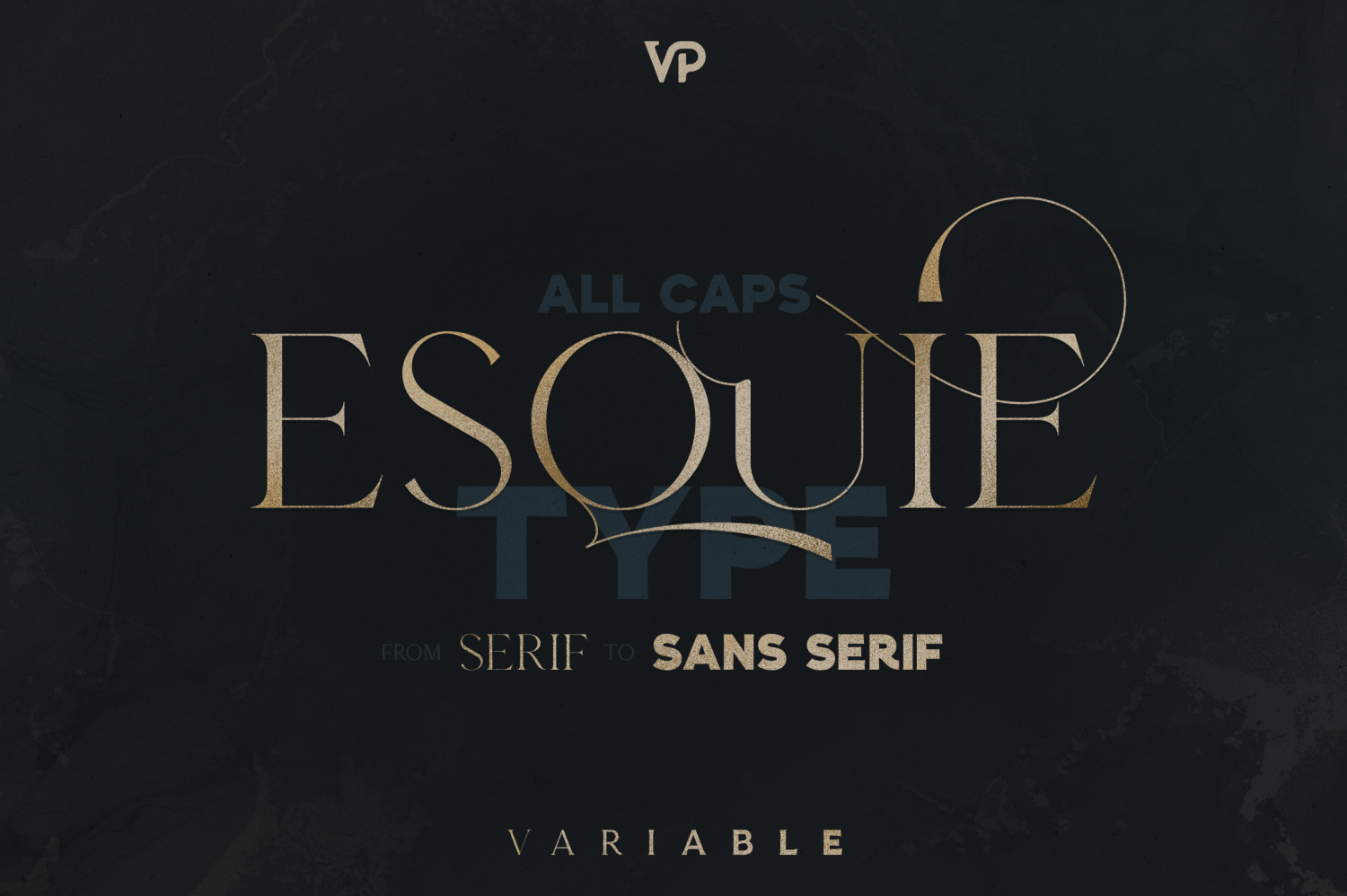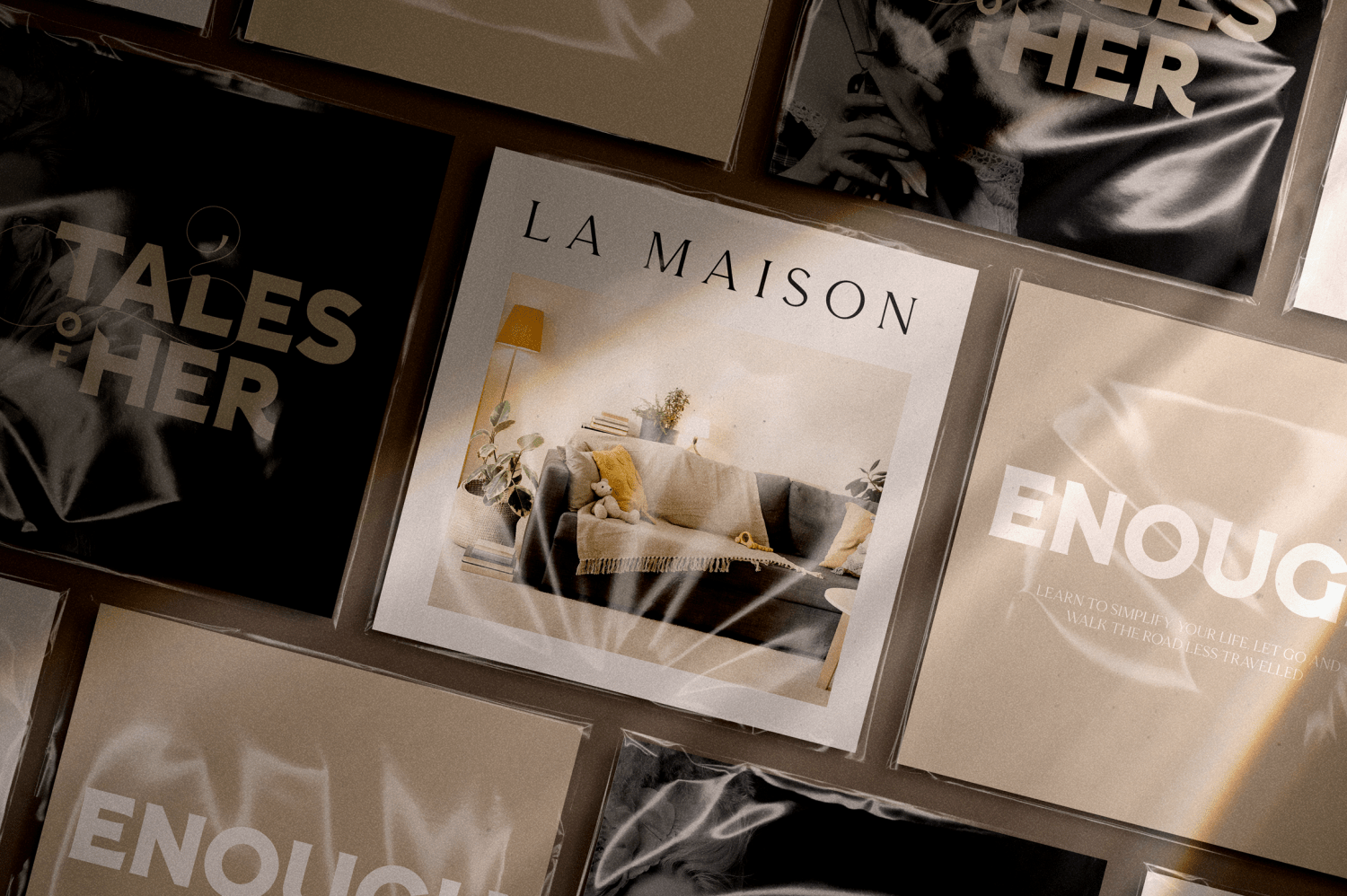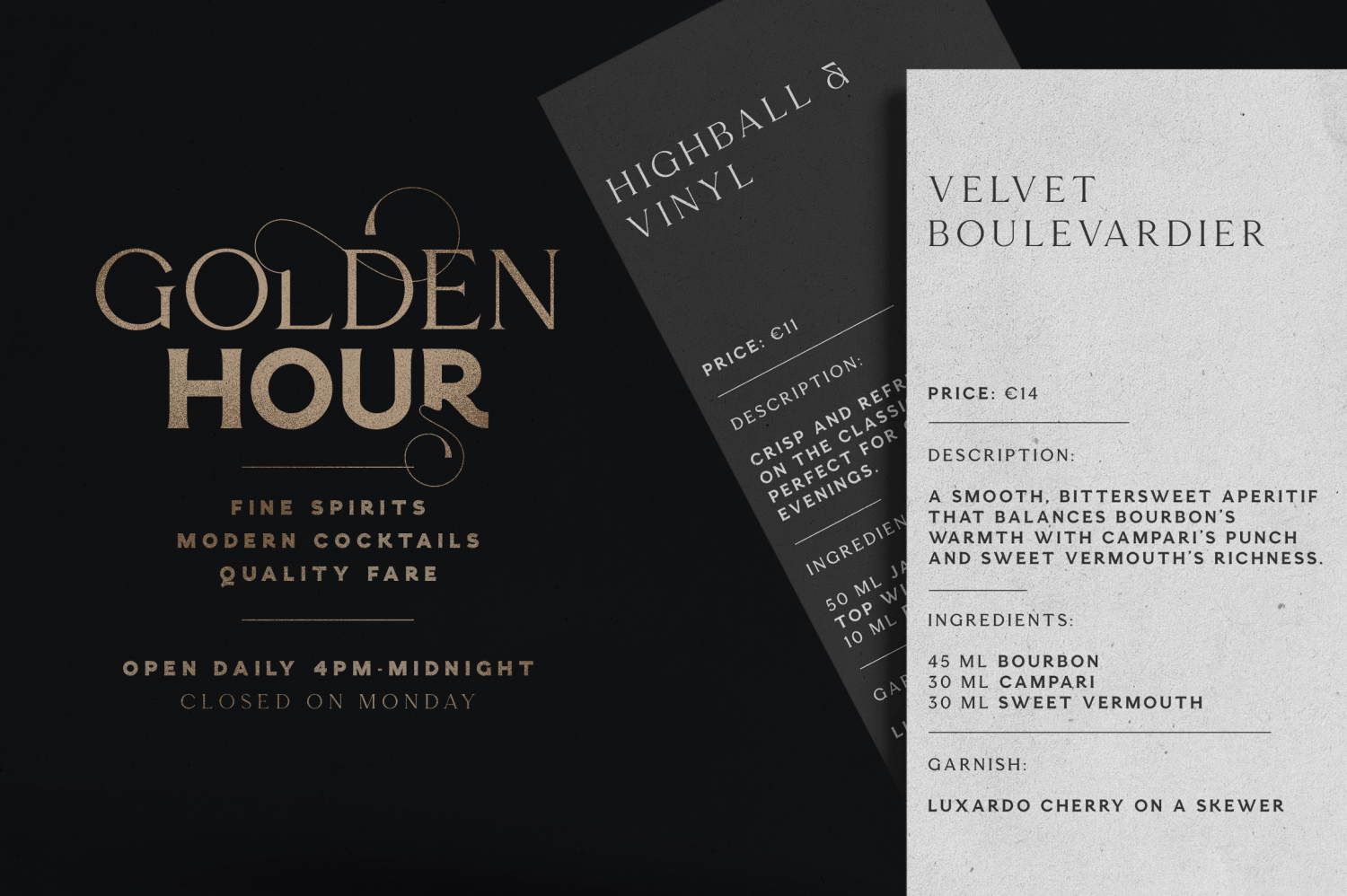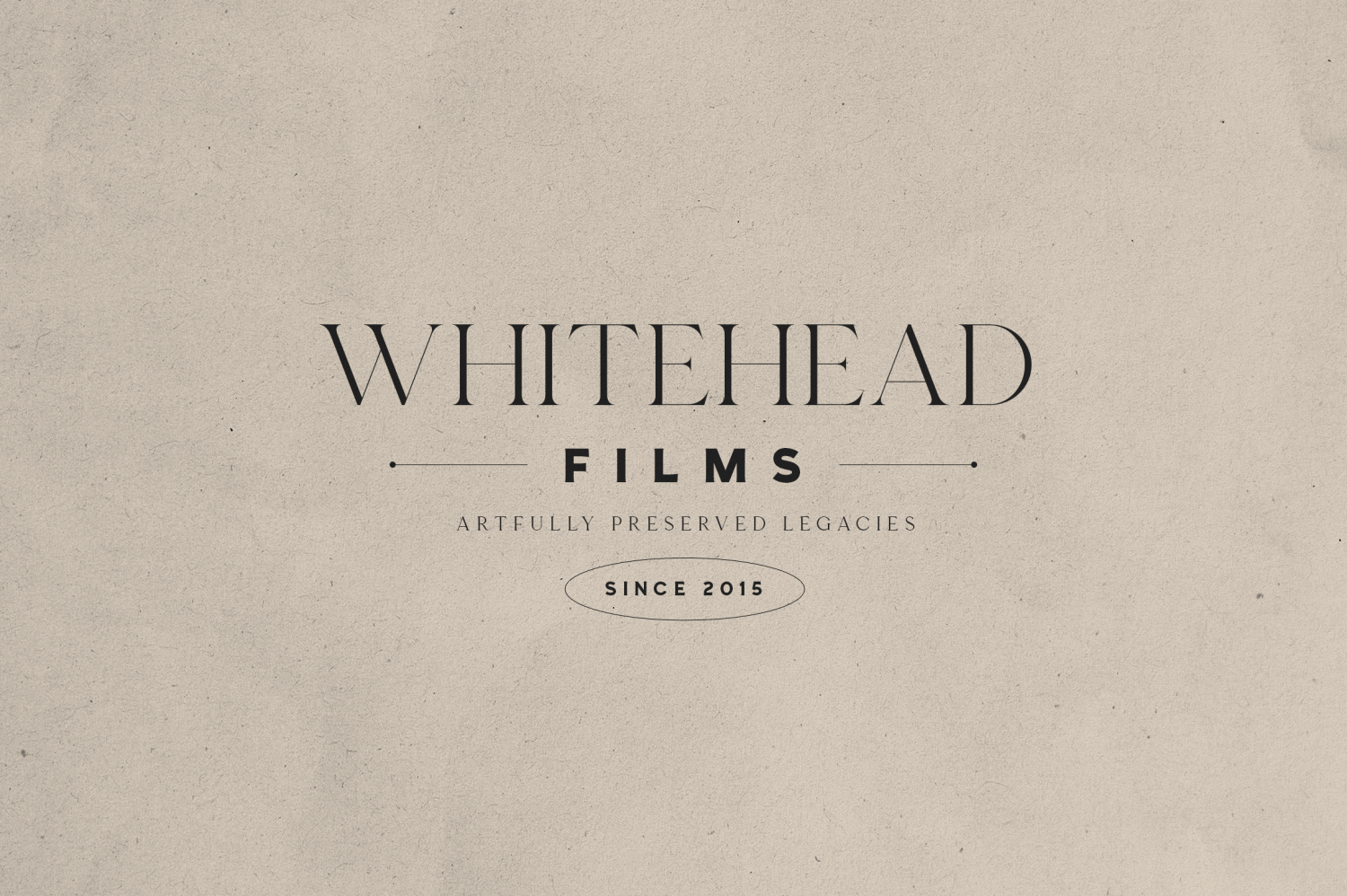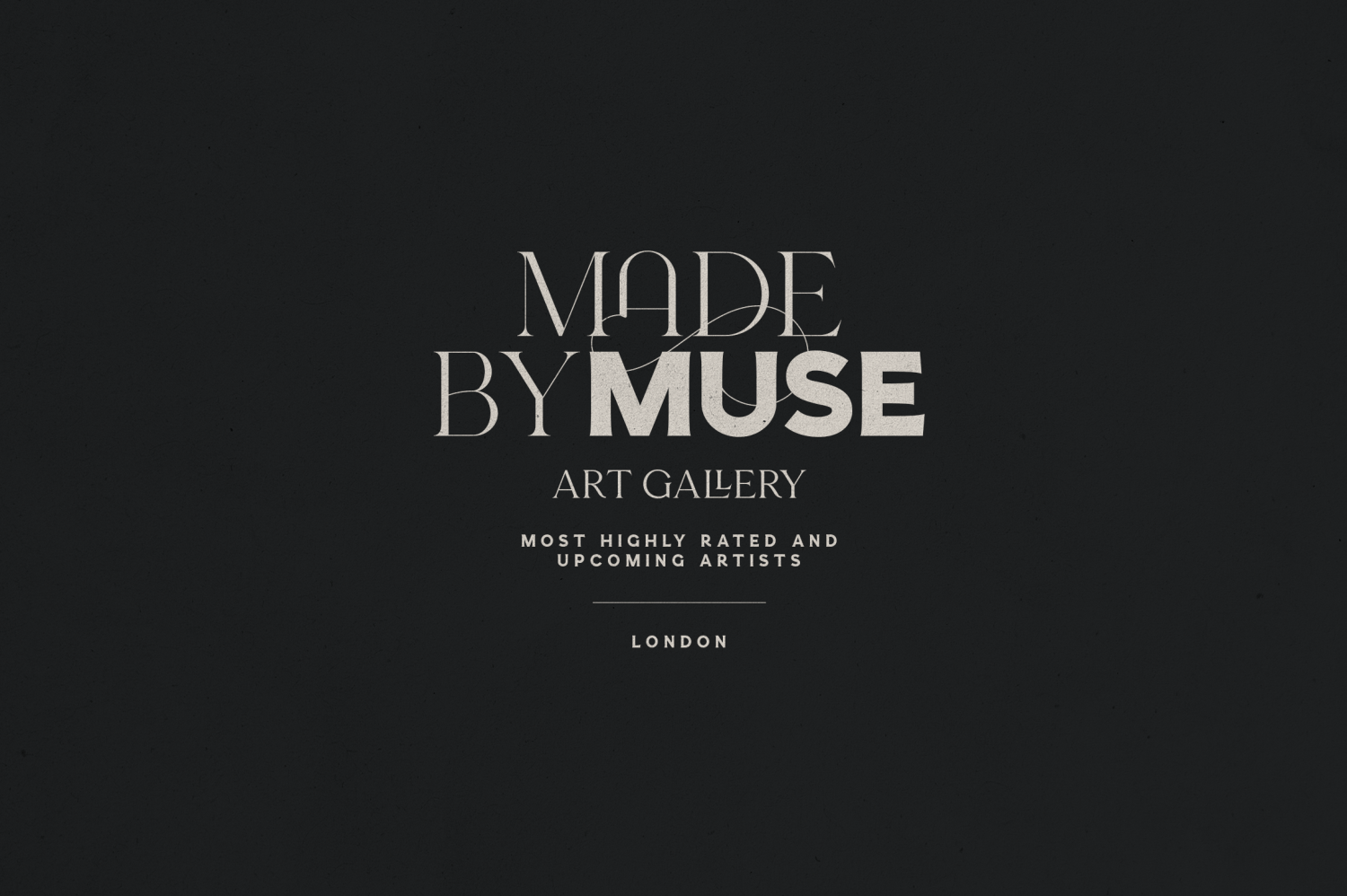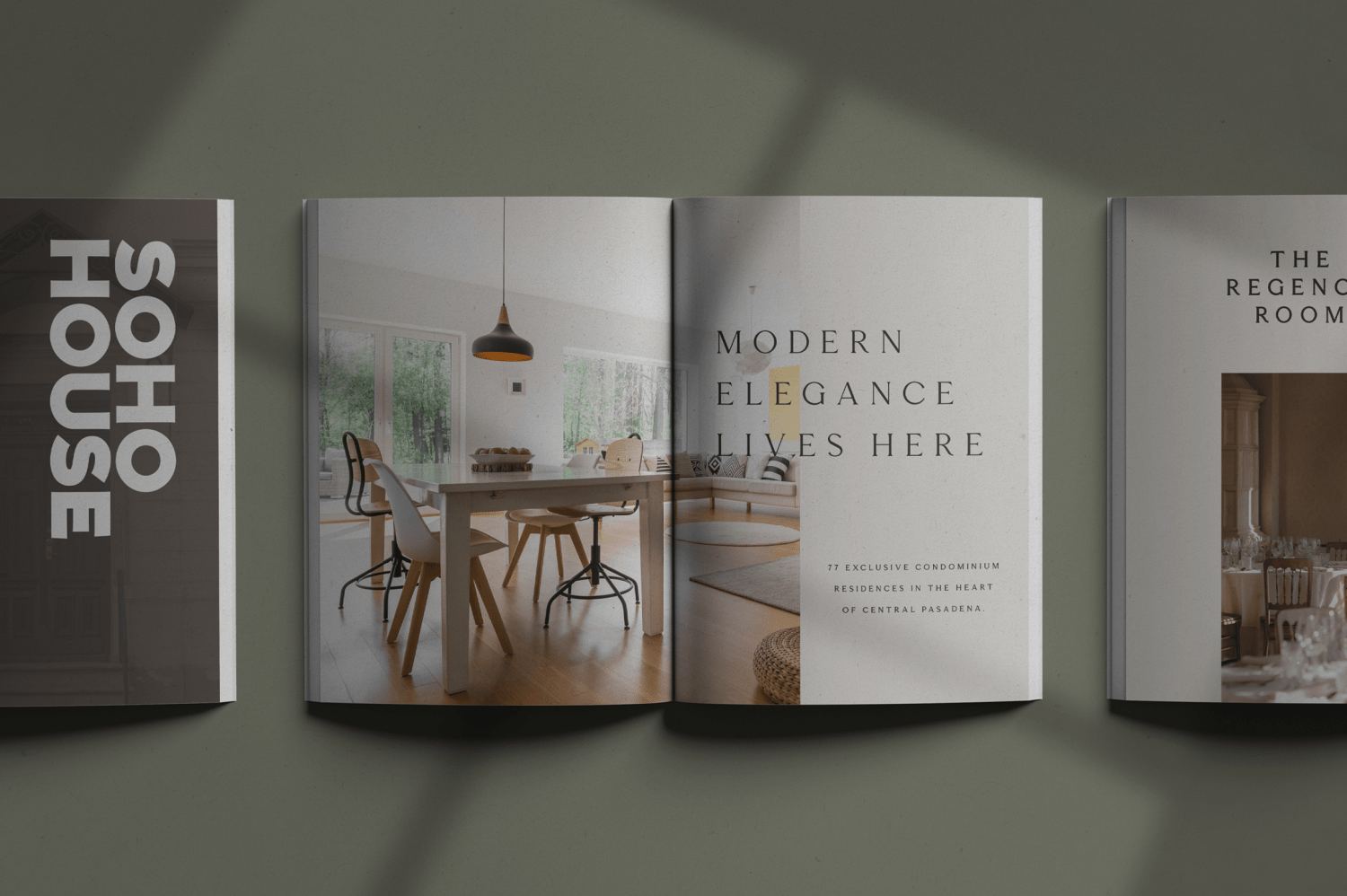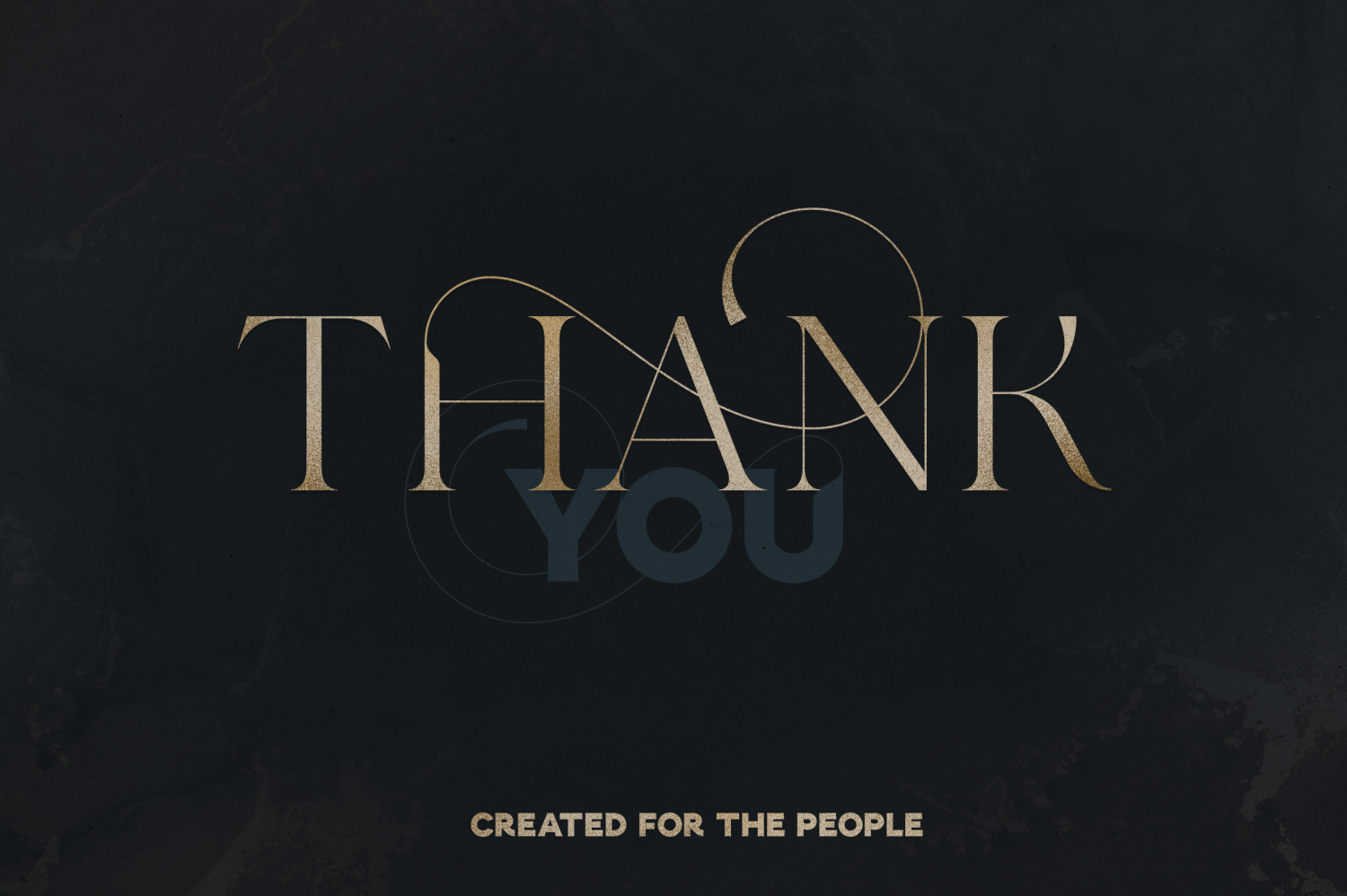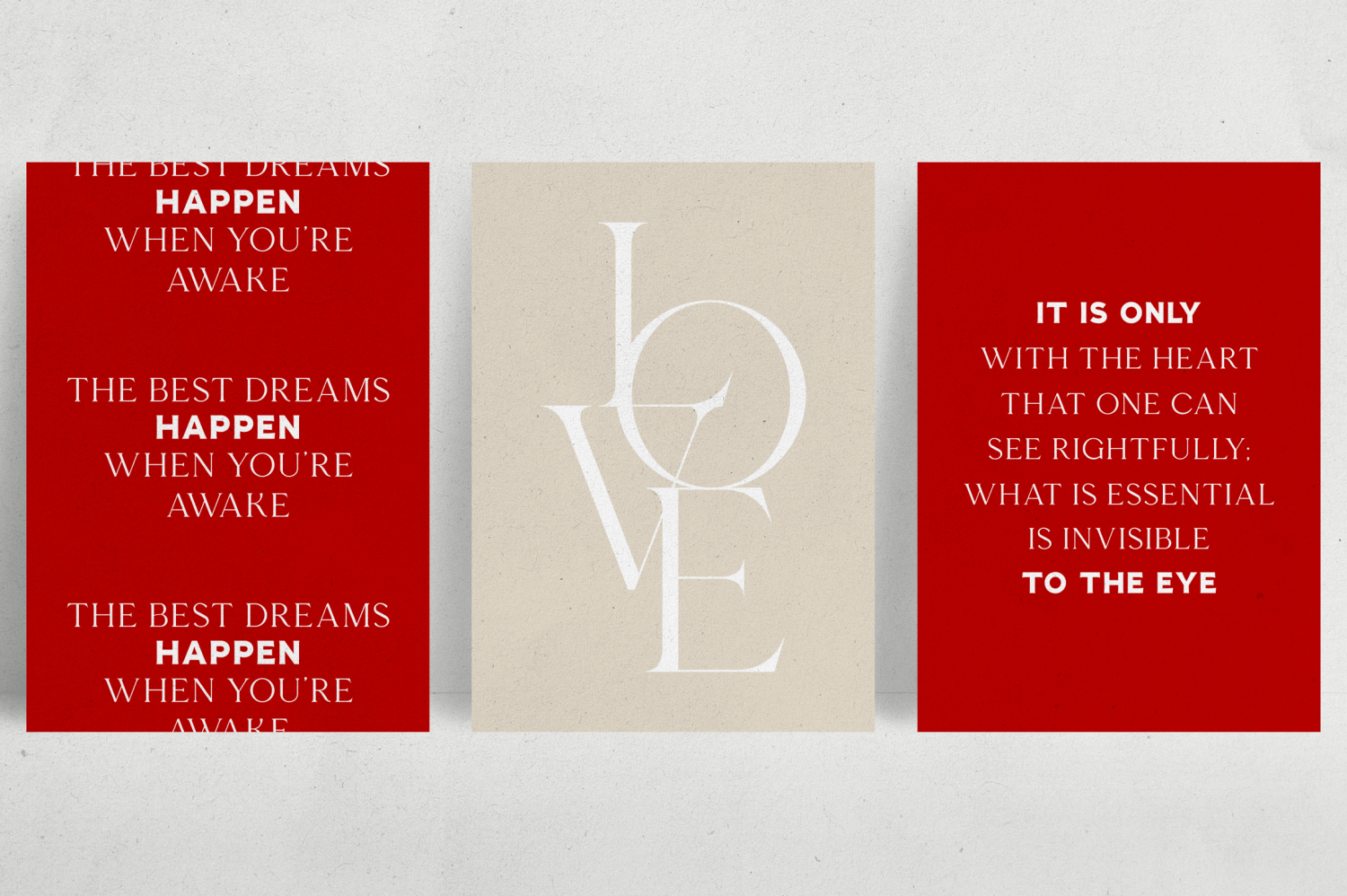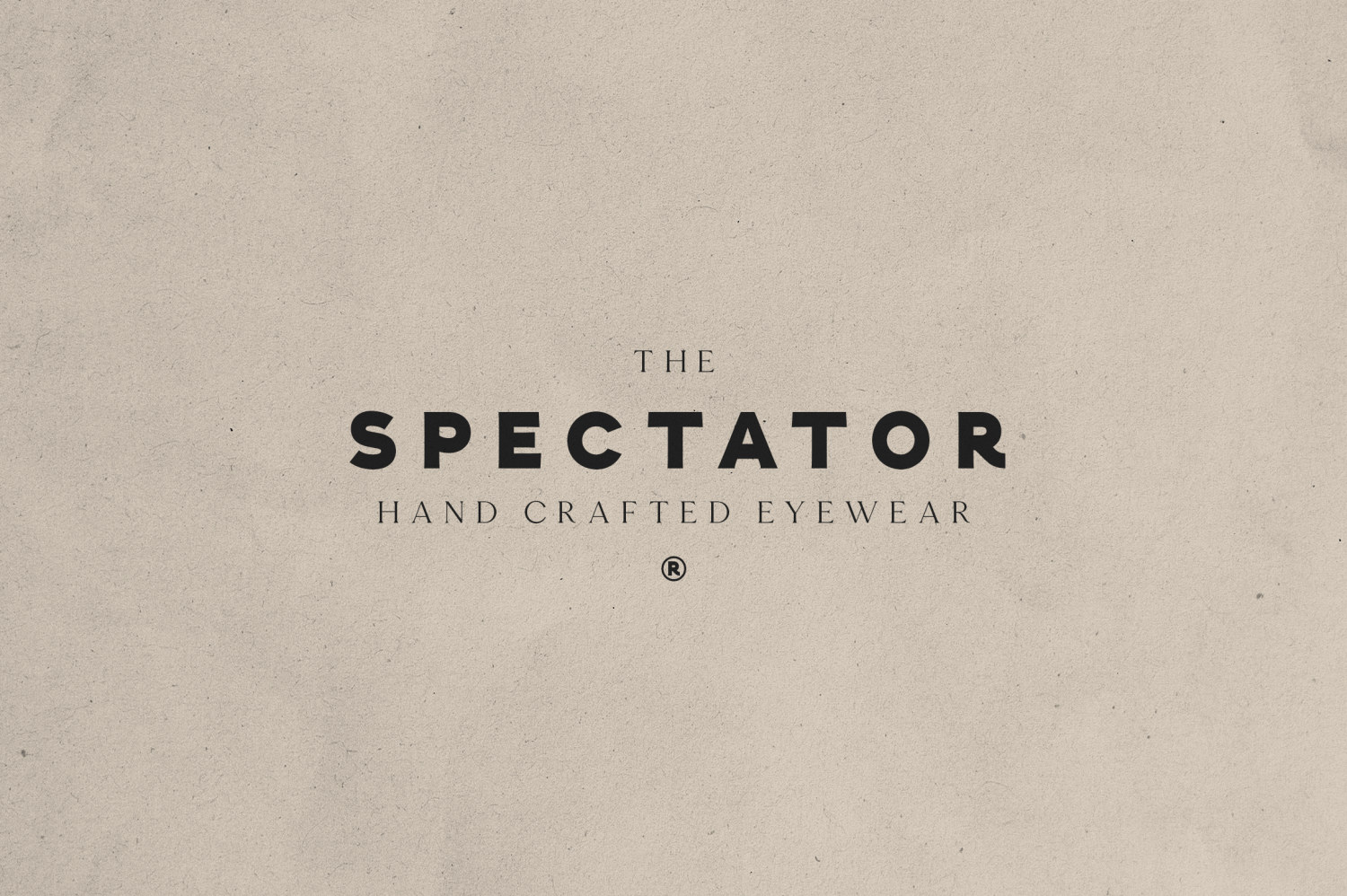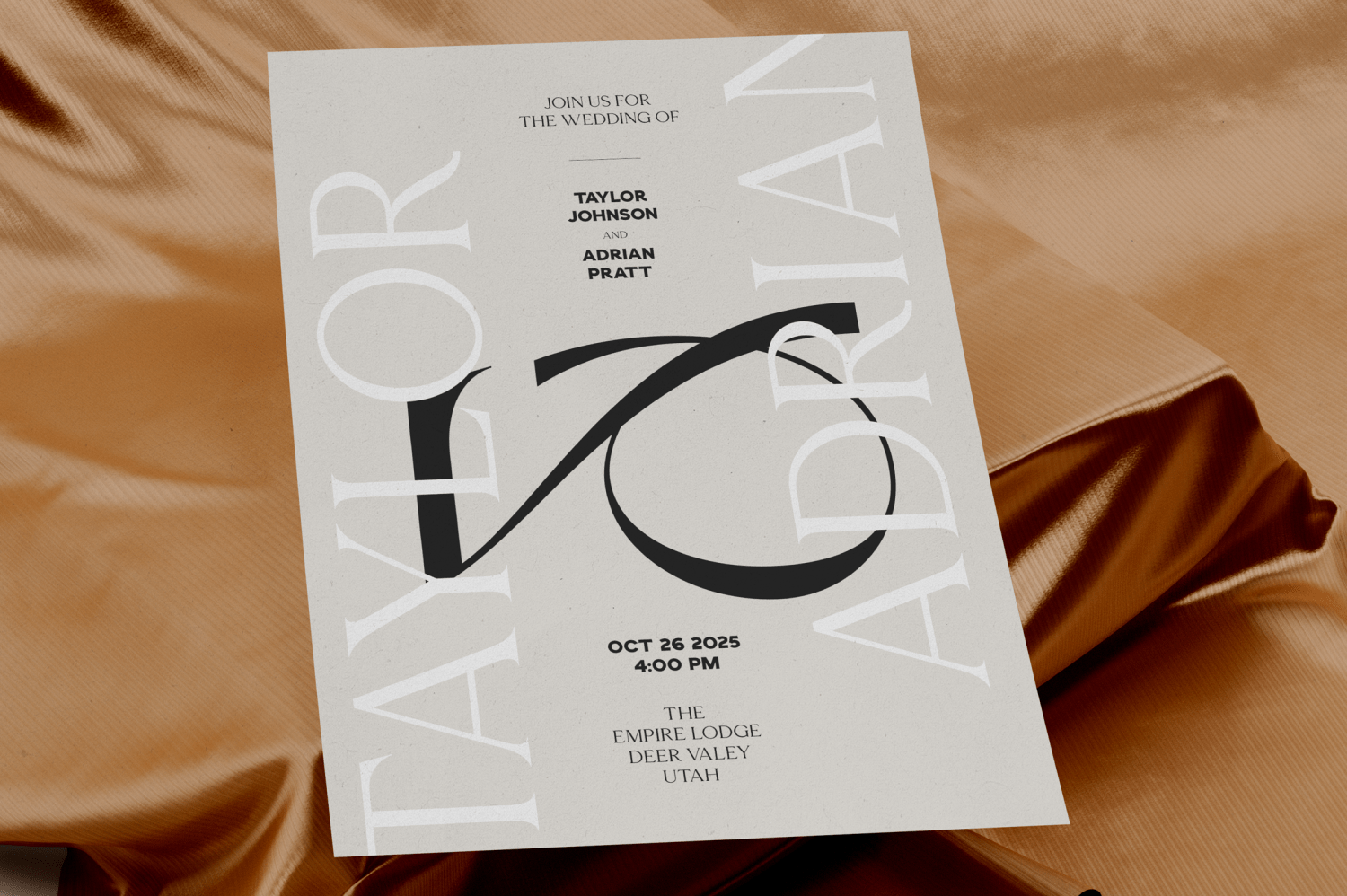
Esquie Type
✦ Esquie — The Evolution of Elegance ✦
From Serif Grace to Sans Simplicity | All-Caps Variable Typeface | 9 Fonts
Esquie is an experimental all-caps typeface that bridges the timeless beauty of serifs with the bold clarity of sans-serifs. Designed as a typographic journey, Esquie offers 9 masterfully crafted styles that transition seamlessly from classic serif to sleek sans-serif — making it a powerful tool for branding, editorial design, and creative expression.
• 9 fonts showing a progressive transformation from serif to sans-serif
• Rich typographic features: ligature glyphs and alternate letterforms -Fully variable format for precise control and infinite in-between styles
• ALL CAPS — with character!
Luxury branding, book covers, editorial layouts, boutique packaging, art galleries, cultural institutions, and any design that demands both elegance and edge.
Why Designers Love Esquie:
From graceful high-contrast strokes to minimalist modern forms, Esquie adapts to your message’s tone and visual identity. It’s more than a font — it’s a design system.